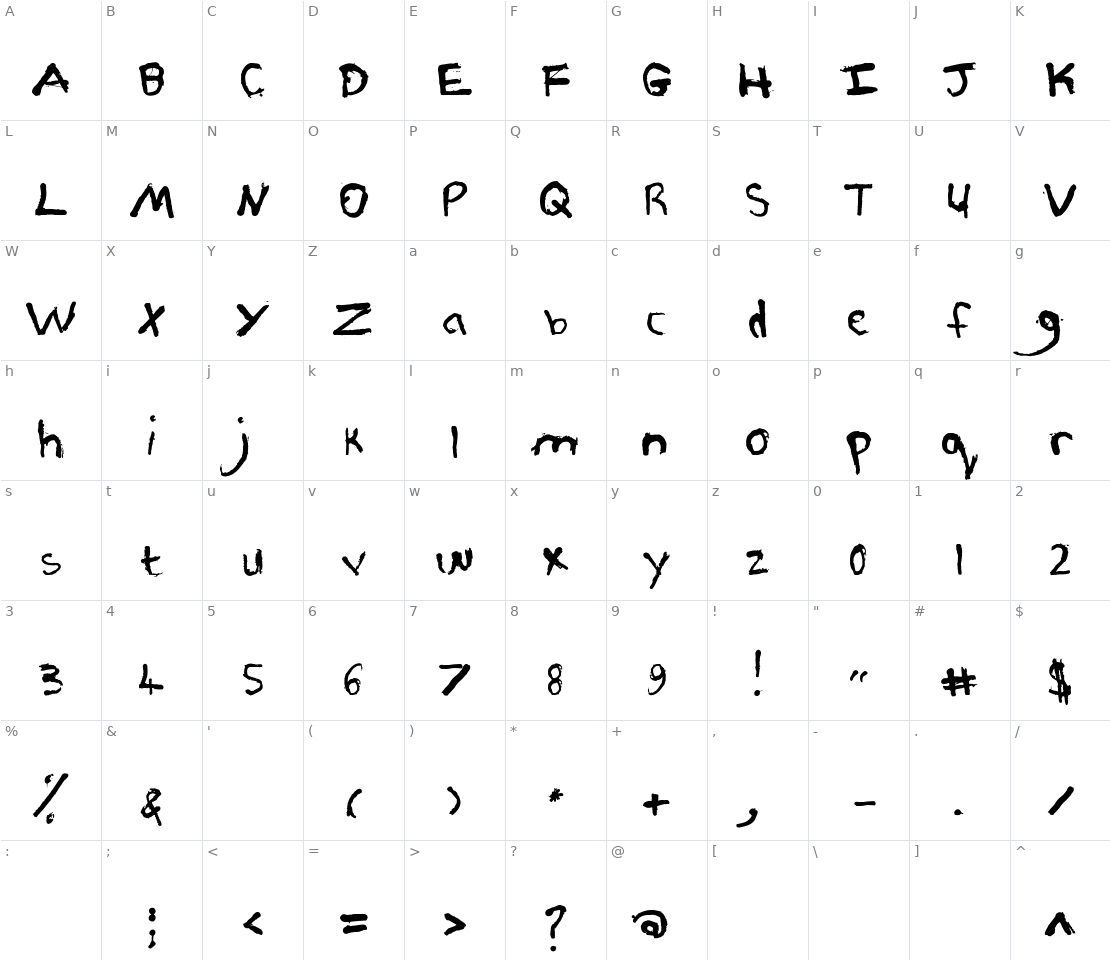
PJ Grunge
PJ Grunge is a rough, textured handwritten face from Perry Johnson that looks like it was scrawled with a dying pen on cheap paper. The letterforms are irregular and deliberately messy, with distressed edges and uneven baselines that give it a raw, lived-in quality. Best for headlines, zine layouts, and poster work where you want type that feels genuinely gritty rather than digitally roughed up.